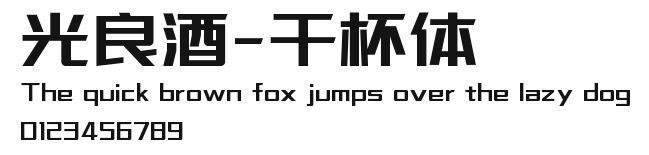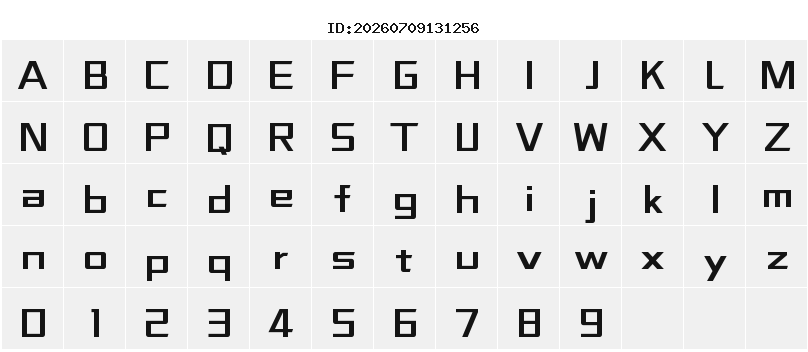
光良酒-干杯体 Preview
• Font Name: 光良酒-干杯体
• Full Font Name: 光良酒-干杯体
• Designer: LBK
• Manufacturer: 四川光良酒业有限公司
About 光良酒-干杯体.ttf
光良酒-干杯体.ttf is a modern, elegant sans-serif font designed for ultimate readability and visual harmony. Perfect for branding, headlines, web design, and print materials.